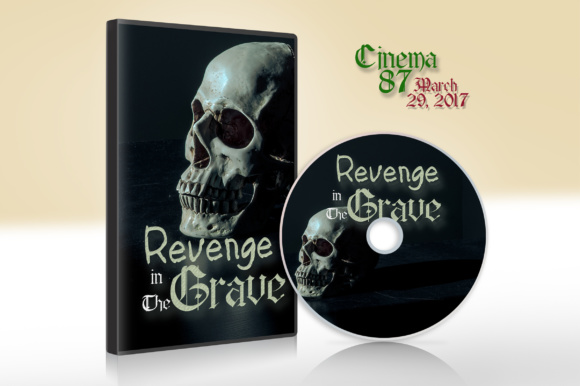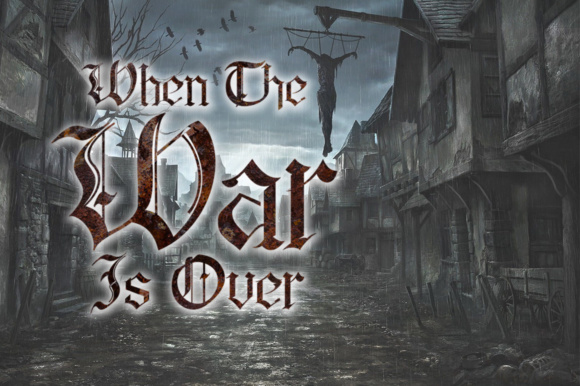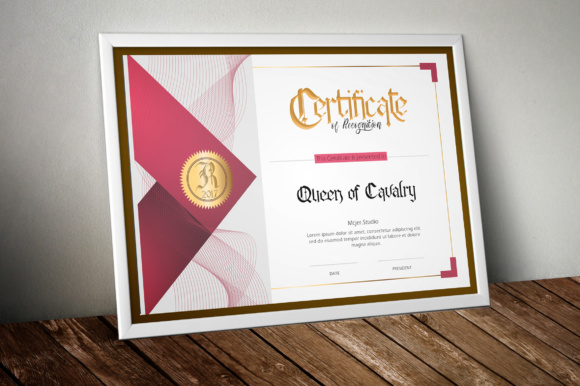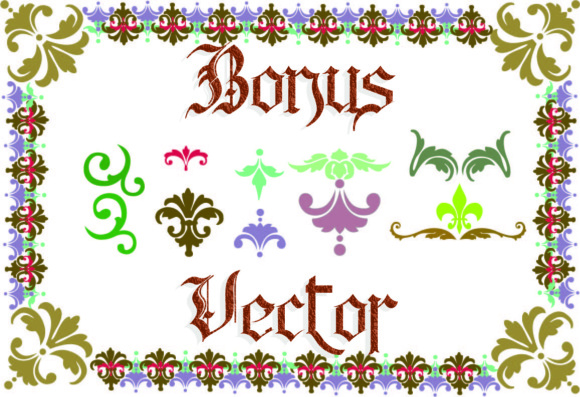
Cavalry Font: A Handmade Blackletter Font for Rustic Designs
In the world of typography, fonts play a crucial role in conveying the tone and aesthetic of a design. For designers and crafters looking to add a touch of rustic charm or thematic flair to their projects, the Cavalry Font is an excellent choice. This handmade blackletter font is inspired by the majestic army horses of the past, evoking a sense of nostalgia and grandeur.
The Inspiration Behind Cavalry Font
The Cavalry Font draws its inspiration from the cavalry units of the past, where horses played a vital role in military operations. The font’s creator aimed to capture the essence of these magnificent animals and the rugged, rustic feel of vintage designs. The result is a font that exudes strength, elegance, and a sense of history.
Characteristics of Cavalry Font
The Cavalry Font is a blackletter font, characterized by its dramatic, cursive strokes and ornate details. The font’s handmade nature gives it a unique, organic feel that sets it apart from more uniform, machine-generated fonts. The letters are intricately designed, with flourishes and swashes that add to the font’s rustic charm.
Ideal Uses for Cavalry Font
The Cavalry Font is ideal for use in a variety of design projects, including:
- Rustic or country-themed designs, such as logos, posters, and signage
- Historical or vintage-inspired designs, such as t-shirts, stickers, and other merchandise
- Thematic designs, such as event branding, invitations, and programs
- Packaging design, particularly for products with a rustic or outdoorsy feel
Benefits of Using Cavalry Font
Using the Cavalry Font in your designs offers several benefits, including:
- Unique aesthetic: The Cavalry Font’s handmade, blackletter design sets it apart from more common fonts, adding a touch of personality to your designs
- Versatility: The font’s rustic charm makes it suitable for a wide range of design projects, from logos to packaging
- Emotional connection: The font’s historical inspiration and nostalgic feel can help create an emotional connection with your audience
Tips for Using Cavalry Font Effectively
To get the most out of the Cavalry Font, consider the following tips:
- Use it sparingly: The Cavalry Font’s bold, ornate design can be overwhelming if overused. Use it as a headline font or for accent text to create visual interest
- Pair it with complementary fonts: Combine the Cavalry Font with simpler, sans-serif fonts to create contrast and visual hierarchy
- Experiment with colors: The Cavalry Font looks great in bold, rich colors. Experiment with different color schemes to find the perfect fit for your design
| Font Name | Cavalry Font |
| Author | mcjer.studio |
The Cavalry Font is a unique and versatile font that can add a touch of rustic charm or thematic flair to your designs. Its handmade, blackletter design and historical inspiration make it an excellent choice for designers and crafters looking to create distinctive and memorable designs. With its bold, ornate letters and swashes, the Cavalry Font is sure to make a statement in any design project.
Get Creative with Cavalry Font